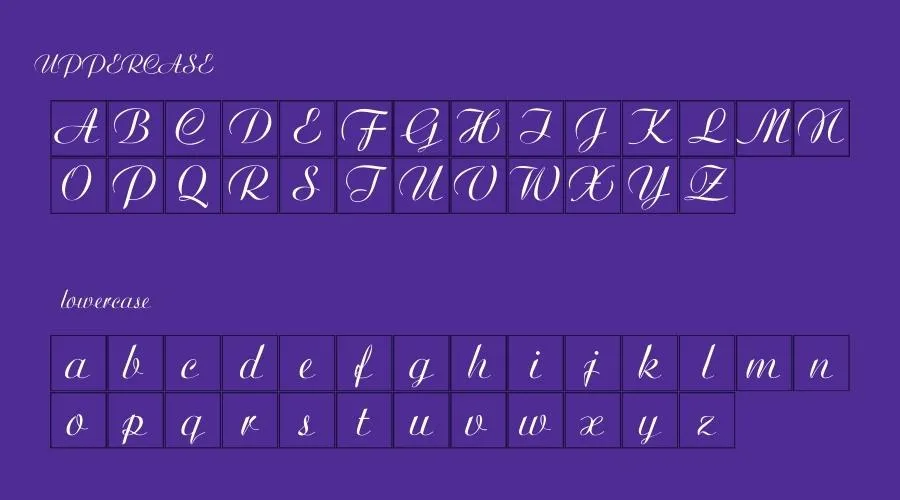
About Adria DB Normal Font
The Adria DB Normal Font is a beautiful calligraphy texture family developed by a well-known graphic designer Marcus Sterz. The subfamily of this outstanding texture is Regular and has various types of styles and weights.
It has a traditional texture with great elements of an alphabet set, such as uppercase letters, numerals, symbols, and many more. It is the perfect choice for CSS and adobe photoshops.